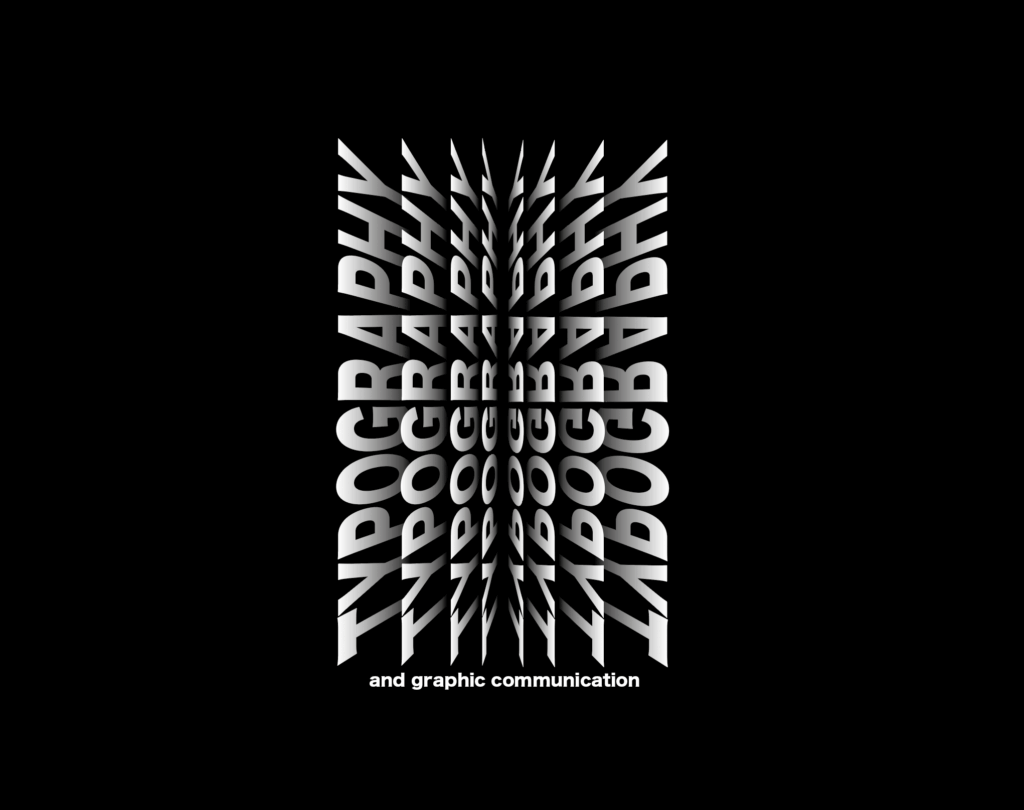
As I approached this task, I knew my main priority was to become more familiar with the software and more specifically tools in the software, whilst keeping the brief in mind. This explains my widely varied designs. After searching for inspiration I had lots of ideas that I wanted to develop, and skills I wanted to master.
Design 1
Figure 1 – Final sticker design 1
BMW, BBC, NBA, KFC. All these brands are known by a 3 letter acronym. My first idea stemmed from this concept. I chose to shorten the title of the podcast to the 3 letters as it creates a brand which is more memorable than an independent podcast. In my design I have highlighted the abbreviated title to draw attention to it, which was my aim when going through the design process.
Design 2
Figure 2 – Final Sticker design 2
Here I wanted to concentrate on developing solely text-based skills. To achieve the handwritten look I was after, I selected a calligraphic font as I feel like this portrayed my goal successfully. When researching I had seen multiple stickers with a vague silhouette of the design acting as a border/outline which inspired me to experiment with this idea, hence why there are multiple shadow layers to this design.
Design 3
figure 3 – Final sticker design 3
Typography is all about words. When said, the word itself has “type” in it, and this design reflects exactly that. A book has tens of thousands of words in it and is usually the first thing people think of when the topic of conversation is words. After watching a tutorial, I learnt how to create this book-like effect which I think conveys the theme of typography perfectly.
Design 1
Figure 4 – Using type on path tool
For continuity, I designed a sticker based on one of my previous podcast covers where I used smart filters, the liquify tool and a clipping masking in Photoshop to create the effect of the distorted TGC. Once I had moved this to Illustrator, I drew a circle around it and used the type on path tool (Figure 4) to add the smaller text around the edge of the sticker, creating a border highlighting the abbreviation. I edited the size of the outer text so it joined as a complete circle.
Design 2
figure 5 – using offset path and merge tool
Figure 6 – without typographic brush strokes
figure 7 – with typographic brush strokes
To emphasize the text, I added a black shadow by duplicating the text, then I expanded, blended and merged the letters together. Additionally, I increased the stroke weight so it was a thick, bold shadow. The use of copy and paste came in handy for this design as I created multiple shadows. The blue shadow behind the white text came from duplicating it, changing the colour and using the selection tool to position it slightly down and to the right of the foremost layer. To enhance the hand-drawn effect, I added some brush stroke-looking shapes using the pen tool, incorporating bezier curves to intensify the sections of the letters that cross over another (Figure 7).
Design 3
figure 8 – using free transform tool
figure 9 – using blend & anchor tools
figure 10 – moving text position
The free transform tool helped me achieve the opening book-like effect. Taking two copies of the word, I morphed them so they were the very outer and inner “pages” (Figure 8). Using the blend tool, I was able to fill the gaps with a desirable number of copies and then adjust the positioning using the anchor tool. I then used the gradient fill tool to give the look of them disappearing into the background, enhancing the book effect (Figure 9). After using the rotation and reflection tools to create the rest of the book, I experimented with the positioning of the remaining text (Figure 3 & Figure 10). In the end I decided upon the first option (Figure 3) because the writing isn’t completely legible in the second one.
Design Resources & Articles
Design 1
figure 11 – BMw logo comparison (2020s v 1970s)
My inspiration for this design was the branding of BMW. Above is the logo from the 1970s along with the current one (Figure 11). My sticker shape reflects the main shape of both logos, a circle. The slight involvement of colour means you are drawn to it so I used this idea for my design for the extended title, as that is an important piece of information. This helped develop my work in terms of hierarchy and the order in which the viewer will see the information.
Design 2
figure 12 – sticker sold on redbubble.com
The solid theme throughout this website’s stickers is the bubble-like border around the designs. It gives the illusion that the design is much more prominent than the background colour and this is a way of manipulating the viewer to look at certain information. I applied this to my own work and the results are successful in that you are really drawn to the word ‘typography’, like it is almost jumping out of the page.
Design 3
figure 13 – Book cover designed by david pearson
Earlier this term, David Pearson, a successful book designer, led one of our Baseline Shift sessions and this particular design of his stood out to me. The concept of making shapes and letters out of words really intrigued me so I wanted to build on this idea in my own way. The result of this was the idea of creating the shape of a book as part of my sticker design, as books have a strong link with typography and graphic communication.